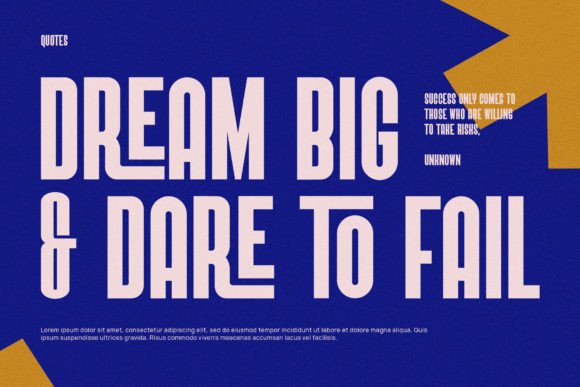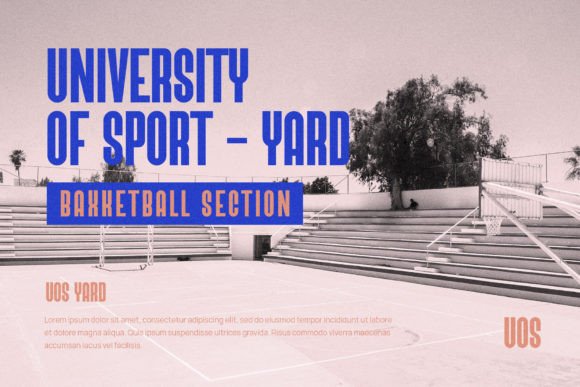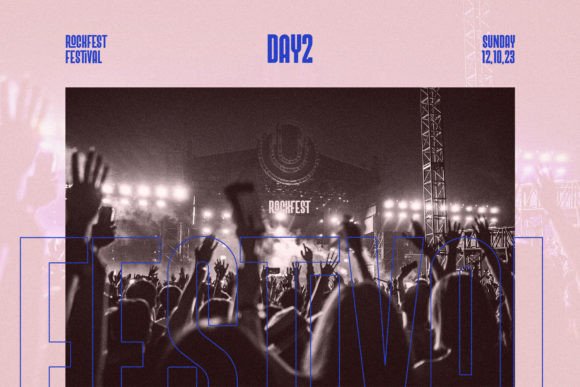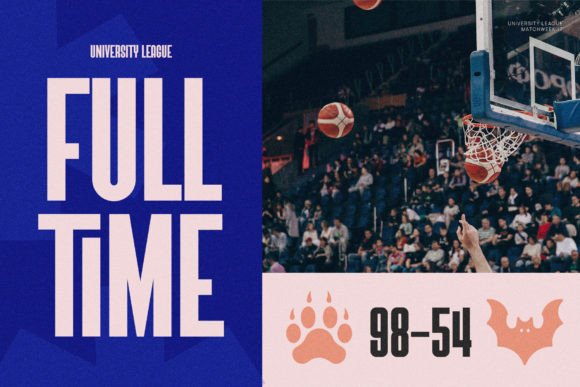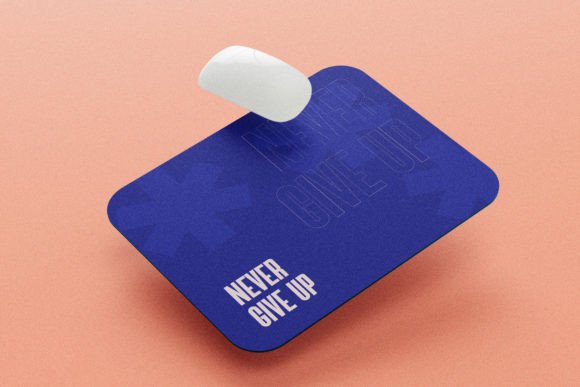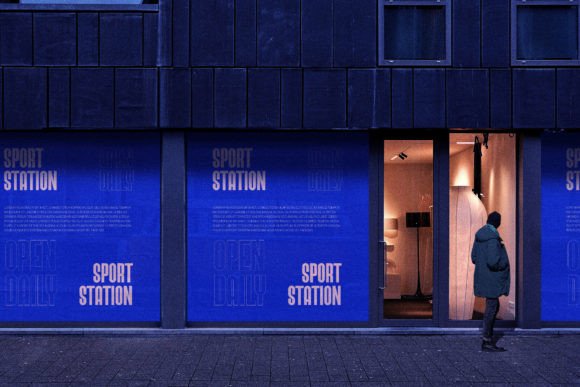
Unlocking the Rhythm of Creativity: Discover the Brich Font
Have you ever sat down at your desk, stared at a blank canvas, and suddenly felt an overwhelming urge to create something beautiful? That’s the moment when inspiration strikes, and the possibilities are endless. For designers, this moment is a regular occurrence, and the right tools can make all the difference. Introducing the Brich Font, a symmetrical and balanced typeface that brings a touch of elegance and minimalism to any design project.
With its unique blend of inspiration and precisely adjusted proportions, the Brich Font is a valuable addition to any designer’s toolkit. Whether you’re working on a brochure, video, or advertising campaign, this font ensures that every glyph works in harmony, making it perfect for logos, magazines, layout designs, and more. Plus, its PUA encoding allows for easy access to all the amazing glyphs and ligatures, giving you the freedom to unleash your creativity.
Key Features of Brich Font
- Font Family: Brich Font is a sans-serif font family with a modern and clean design.
- Font Sizes: Supports font sizes ranging from 8 to 72 points, making it suitable for various applications.
- Resolution: Designed for high-resolution displays, with optimal performance at 300 DPI and above.
- Unique Characteristics: Brich Font features a unique blend of geometric and organic elements, resulting in a distinctive and modern aesthetic.
Brich Font Review
Overall, I’d say the Brich font has some great qualities that make it a nice addition to any project. ✨ Its unique blend of modern and vintage elements gives it a really interesting feel that can add a lot of character to text-based designs. The font is also quite versatile, working well in both digital and print applications.
- ✨ Unique blend of modern and vintage elements
- ✨ Highly versatile, suitable for both digital and print applications
- ✨ Can add a lot of character to text-based designs
However, there are some limitations that might make it less suitable for certain projects. ⚠️ The font can be quite bold and overpowering, which might not be ideal for designs where subtlety is key. Additionally, the font’s unique elements can sometimes be a bit distracting, especially in smaller text sizes.
- ⚠️ Can be overpowering in certain designs
- ⚠️ Unique elements can be distracting in smaller text sizes
Overall, I think the Brich font is a great choice for projects where you want to add a bit of personality and flair. Just be mindful of the potential limitations and use it thoughtfully to get the best results.
Tips for Getting the Most Out of Brich Font
Use the Brich Font for creative projects that require a unique and eye-catching font.
Combine the Brich Font with other creative elements, such as illustrations or graphics, to create a visually appealing design.
Experiment with different font sizes, colors, and styles to add depth and interest to your design.
The Brich Font is ideal for:
Wedding invitations and